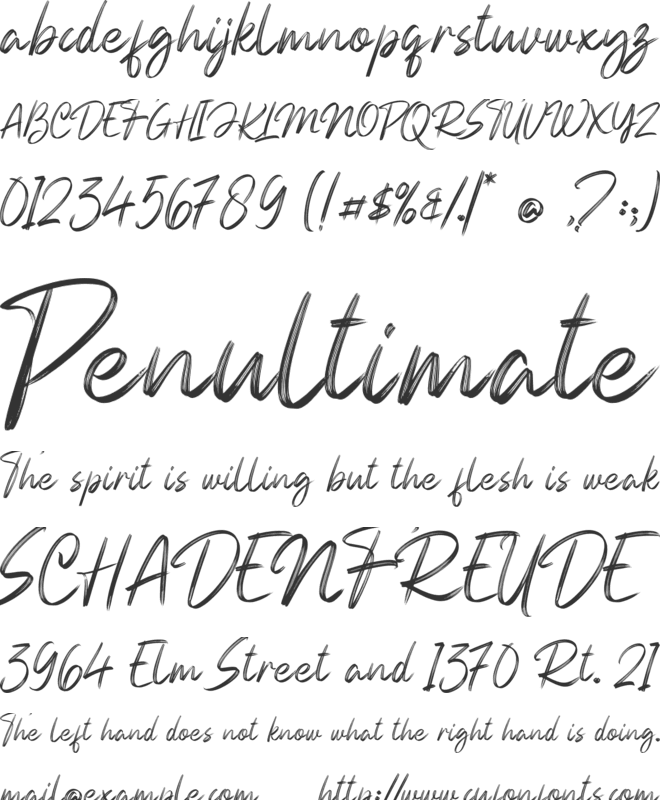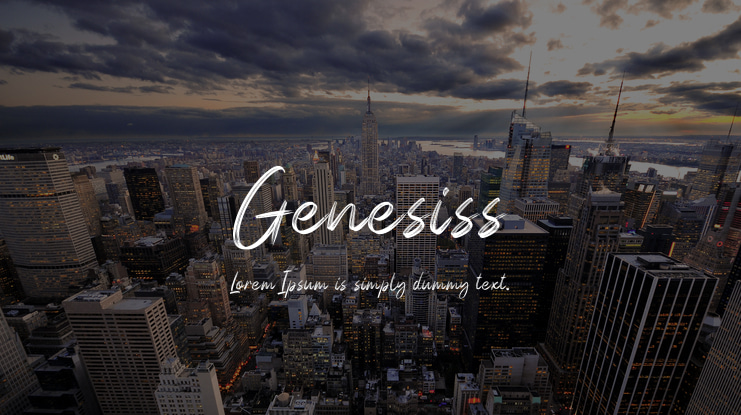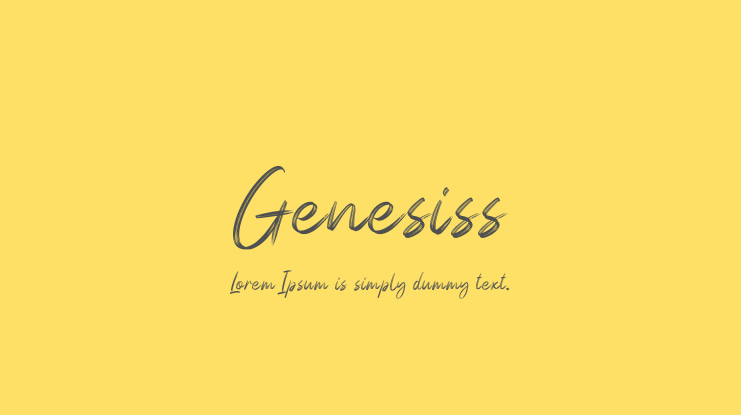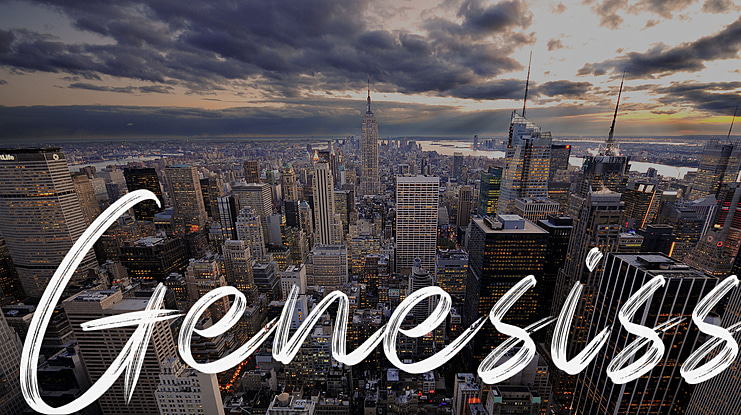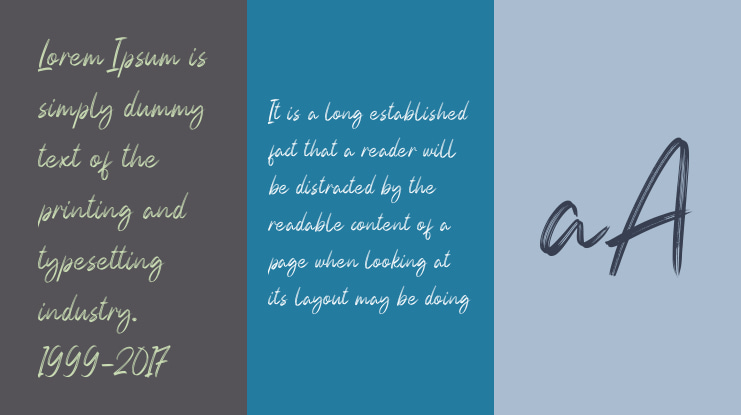
Genesiss Font
Genesiss! A handbrush script font with 2 styles, regular and slant. Genesiss font is suitable for branding, logotype, apparel, T-shirt, Hoodie, product packaging, quotes, flyer, poster, advertising, etc.
1. Uppercase and lowercase characters
2. Multilingual support.
3. Numerals, punctuations, end titling, and ligarures